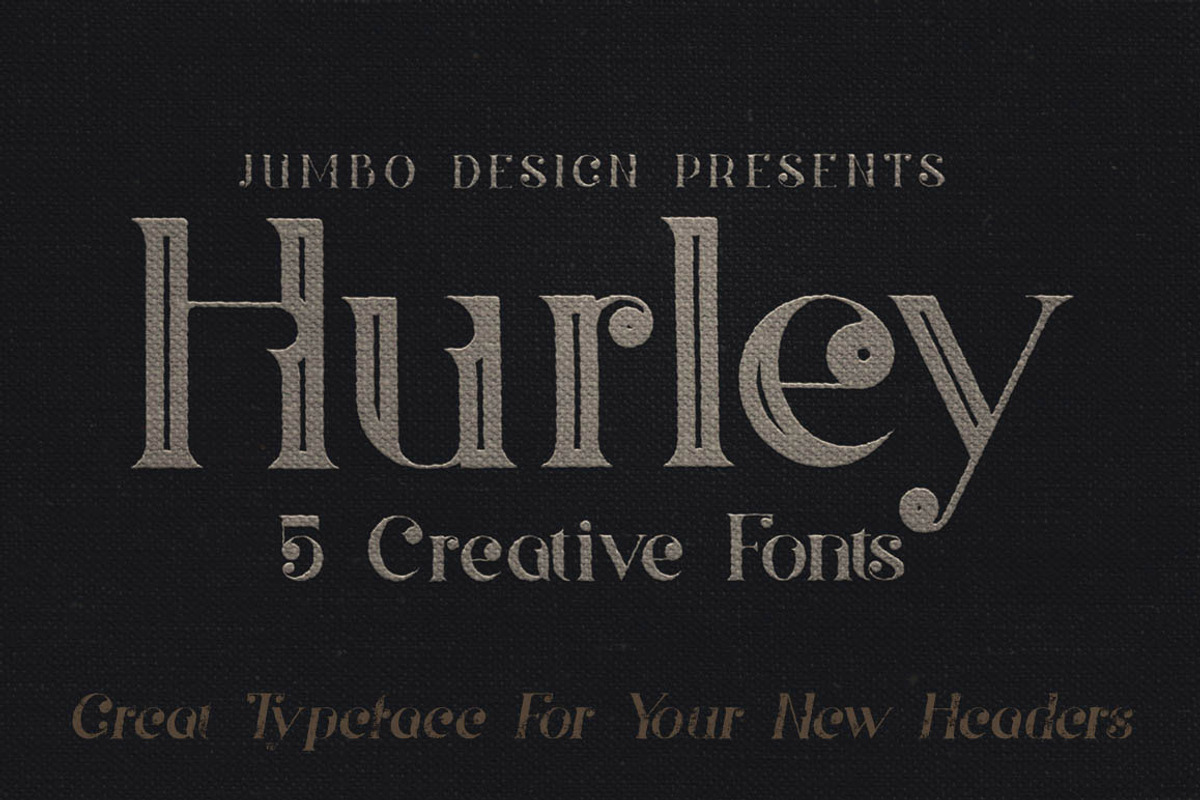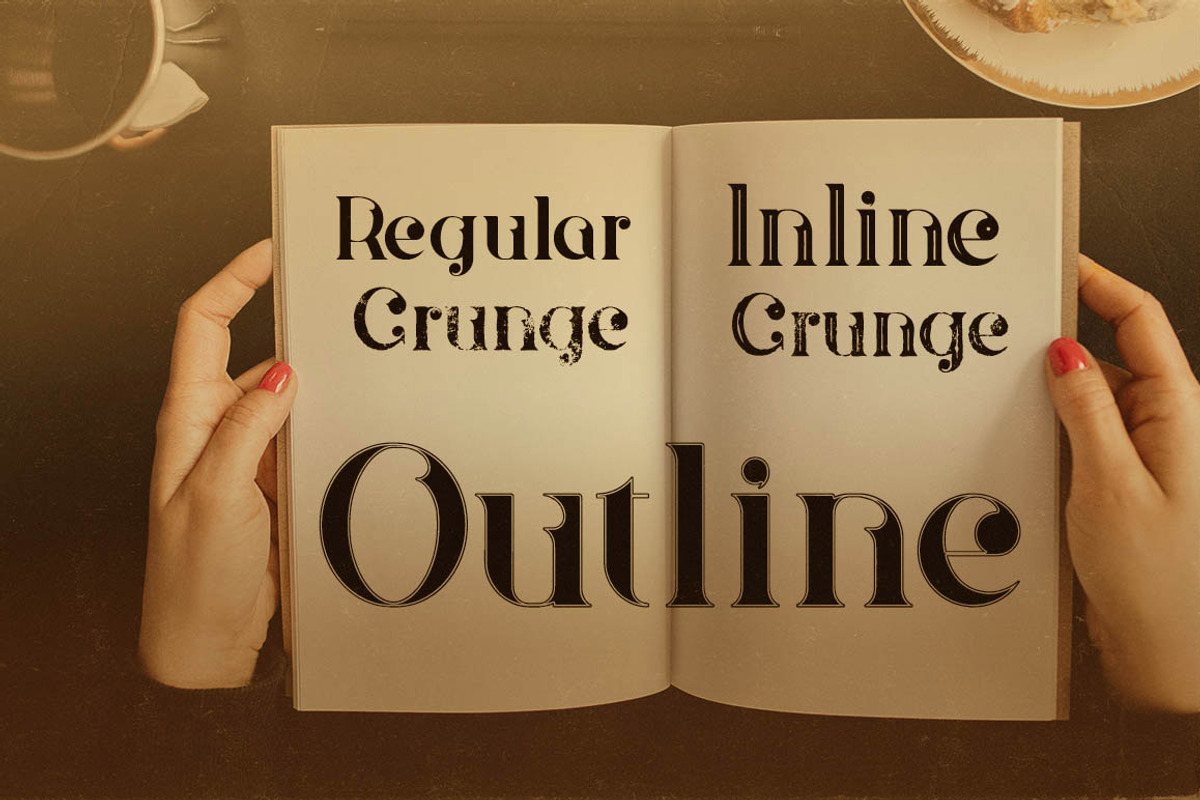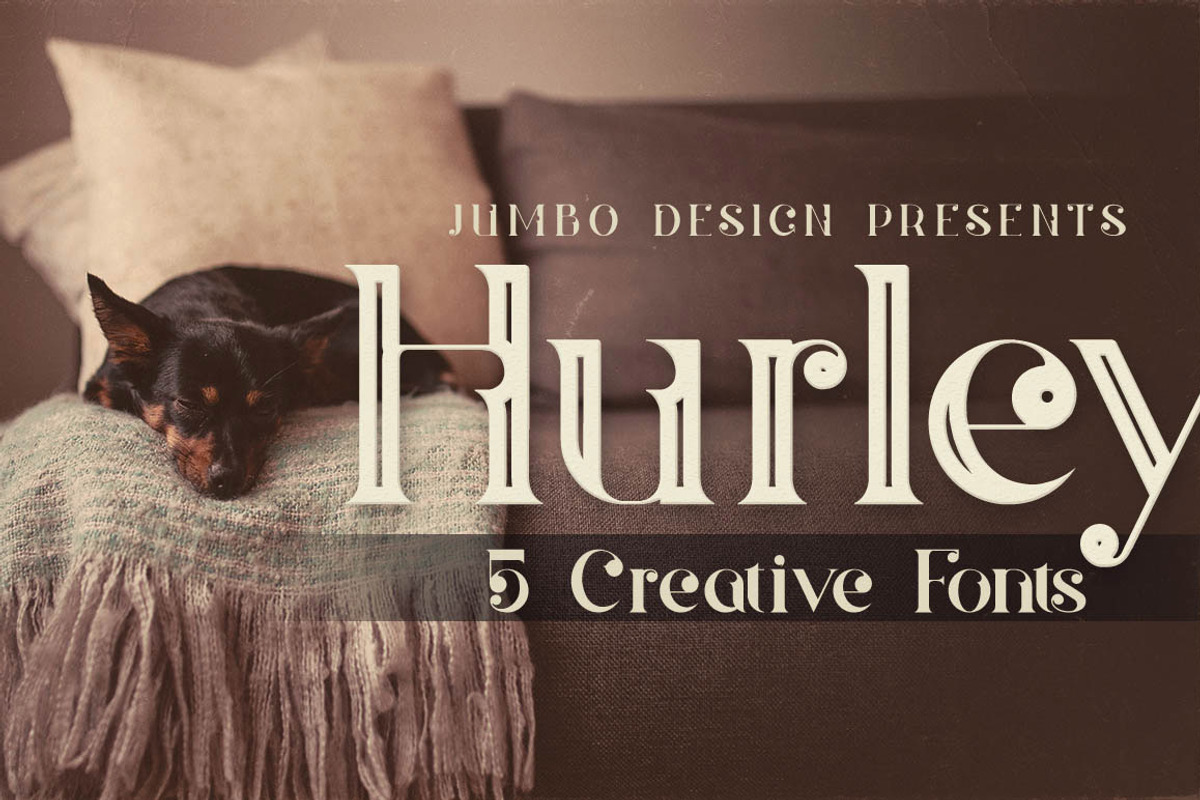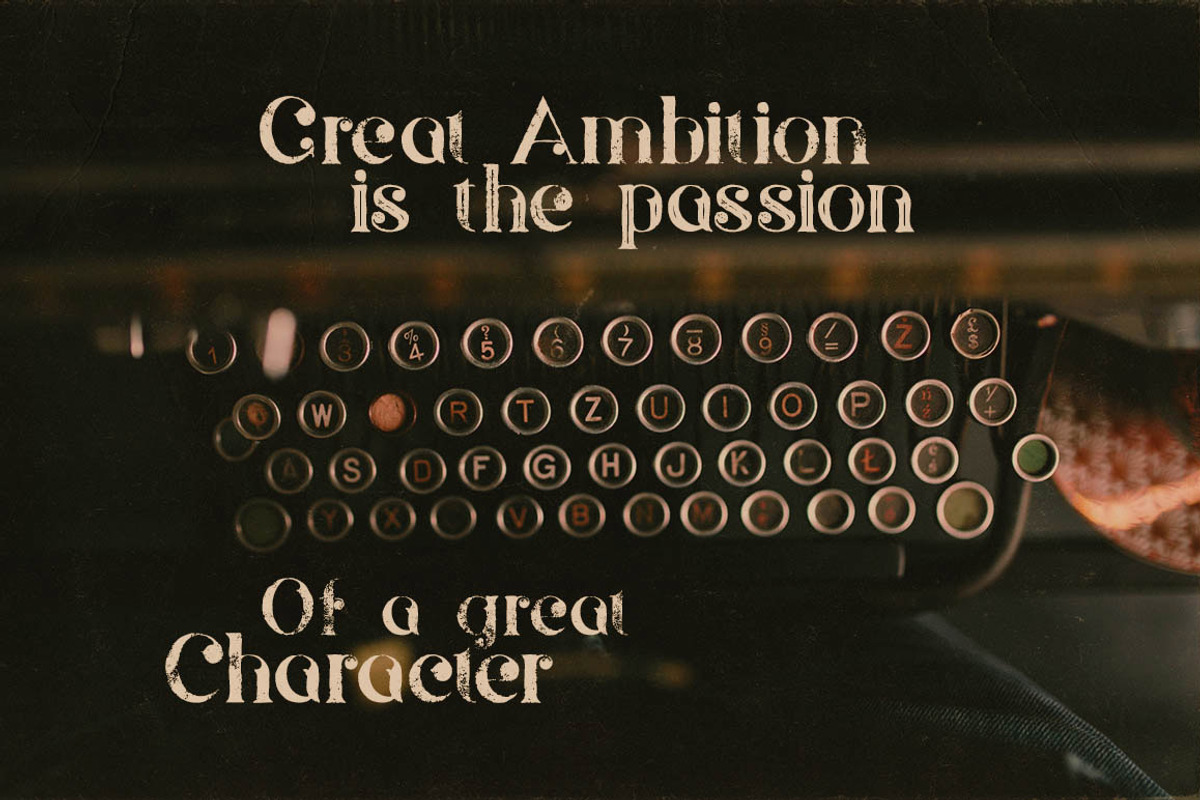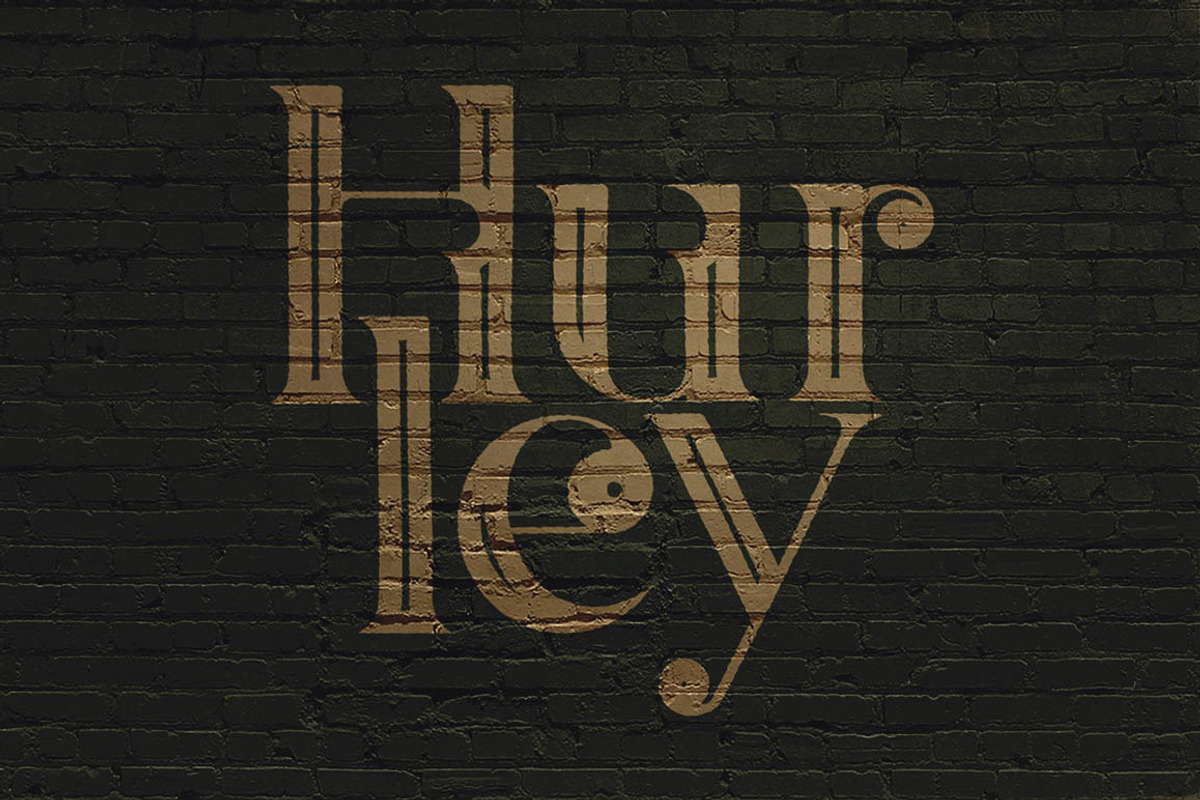
Hurley - Vintage Style Font
Hurley - Vintage Style Font by JumboDesign is a font selected for branding, posters, packaging, typography.
Why Hurley - Vintage Style Font is worth a look
Hurley - Vintage Style Font by JumboDesign fits naturally into Branding, posters, packaging, typography.